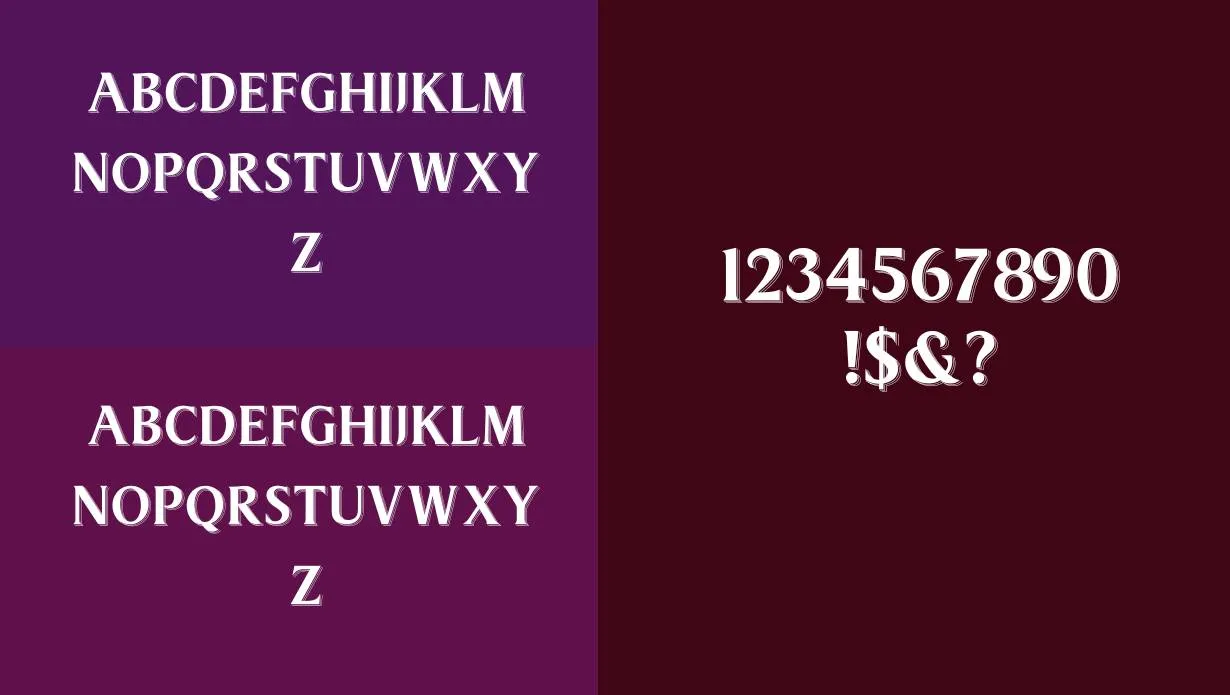
The Greatest font exudes strength and impact, commonly used in designs requiring bold statements or eye-catching titles. It’s frequently employed in advertising, branding, or promotional materials.
With a significant number of characters and glyphs, it provides ample choices for creating attention-grabbing designs. Transform your design project into a captivating masterpiece by including this typeface. You can use it independently or harmoniously pair it with squirrel font.